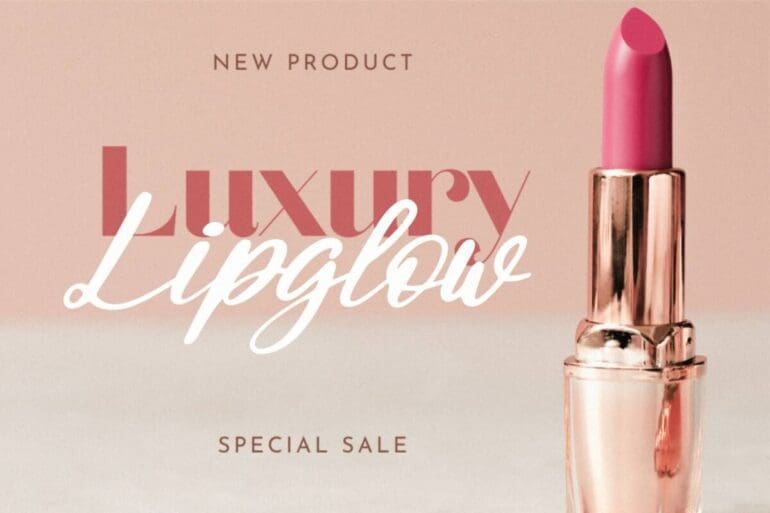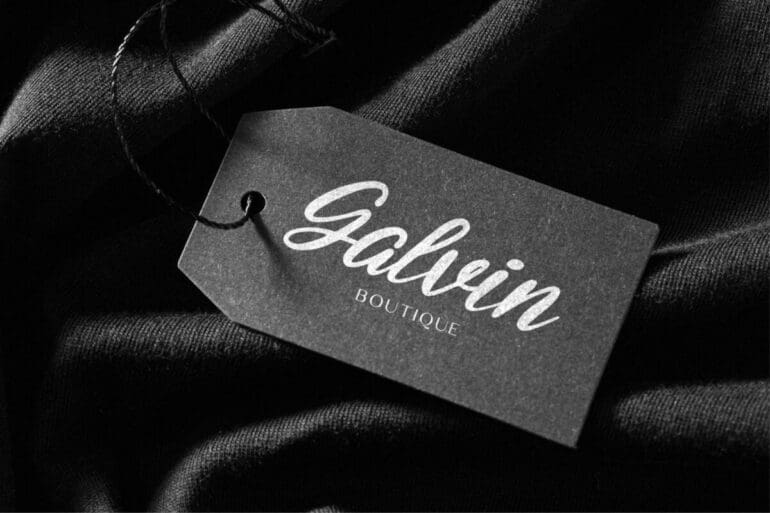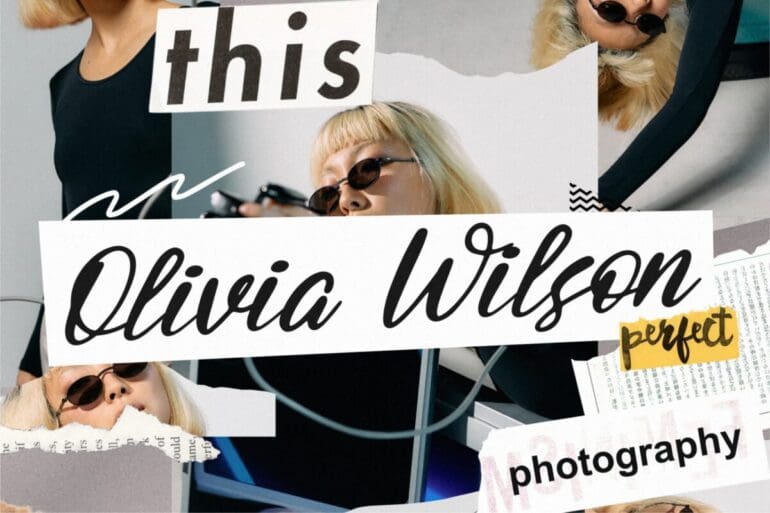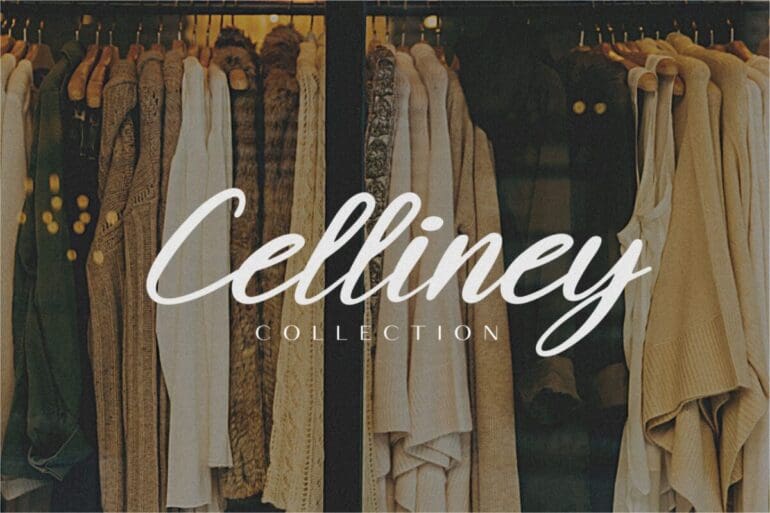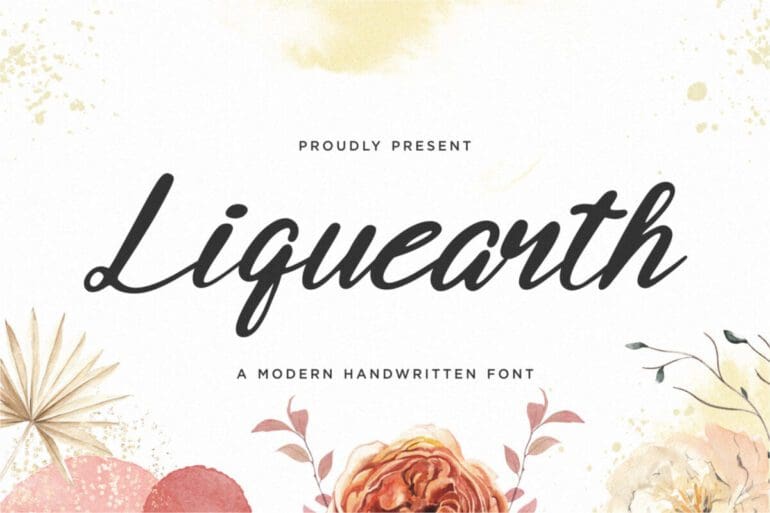
Liquearth Font
Liquearth is a Modern Handwritten Font. Liquearth is perfect for product packaging, branding project, megazine, social media, wedding, or just used to express words above the background.